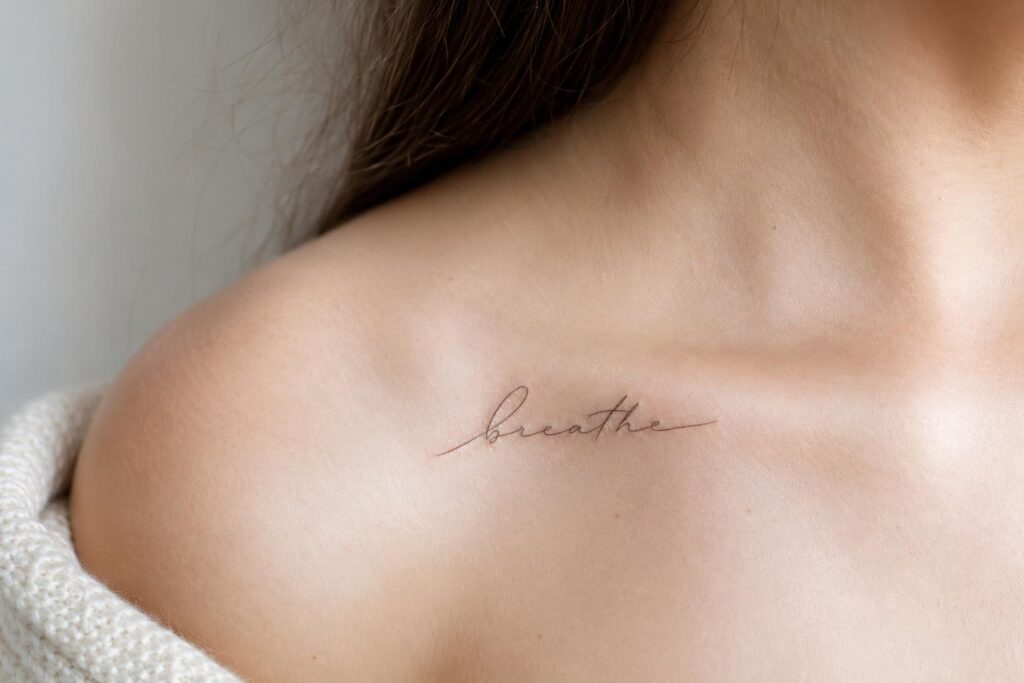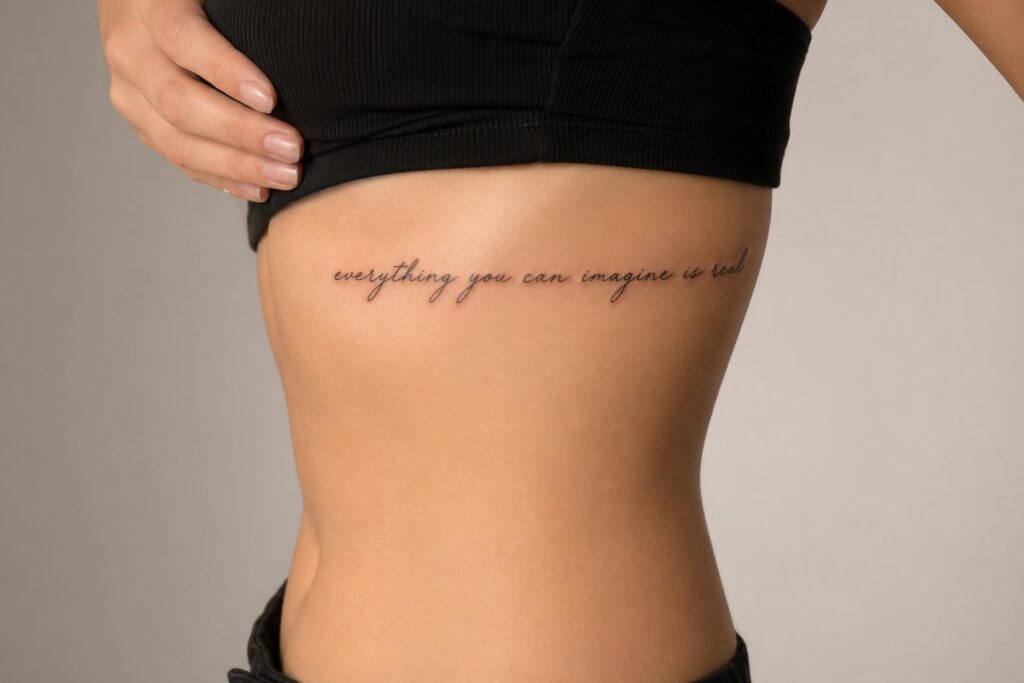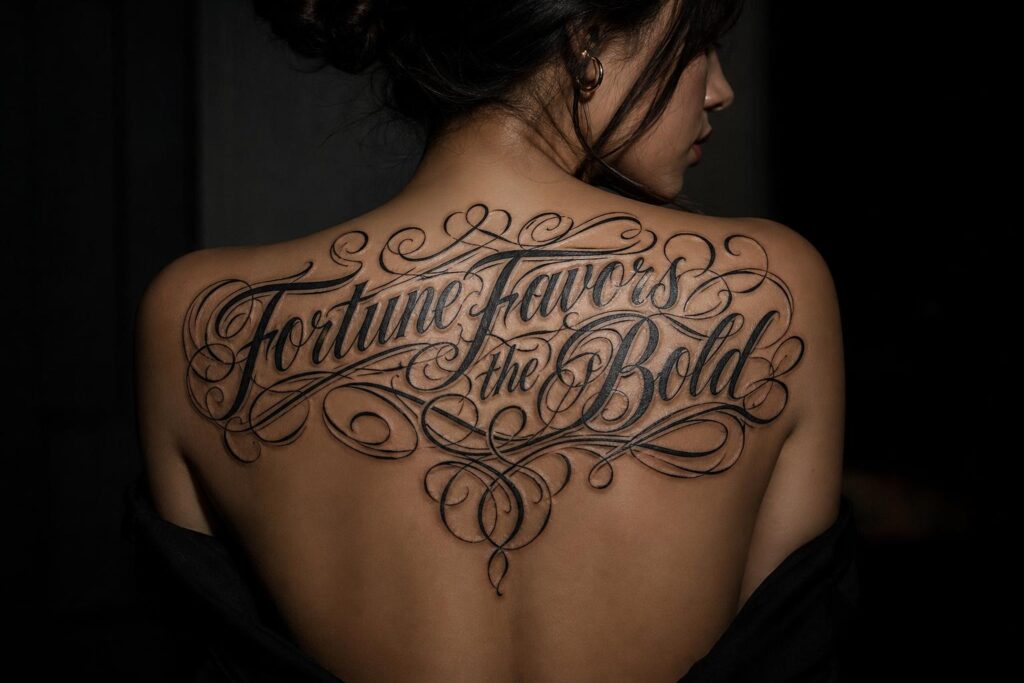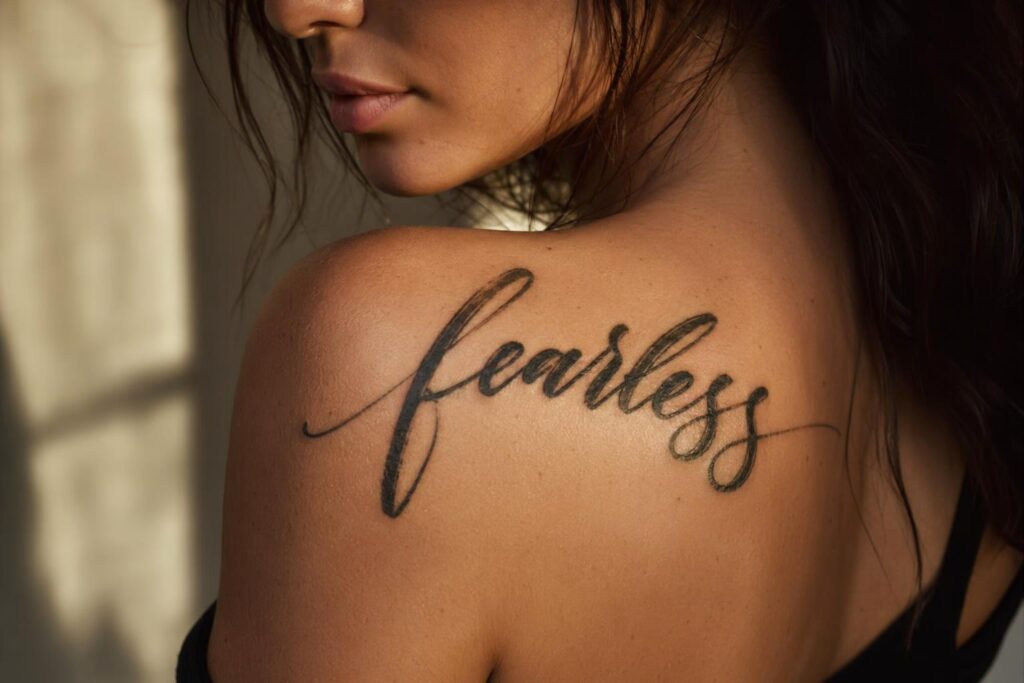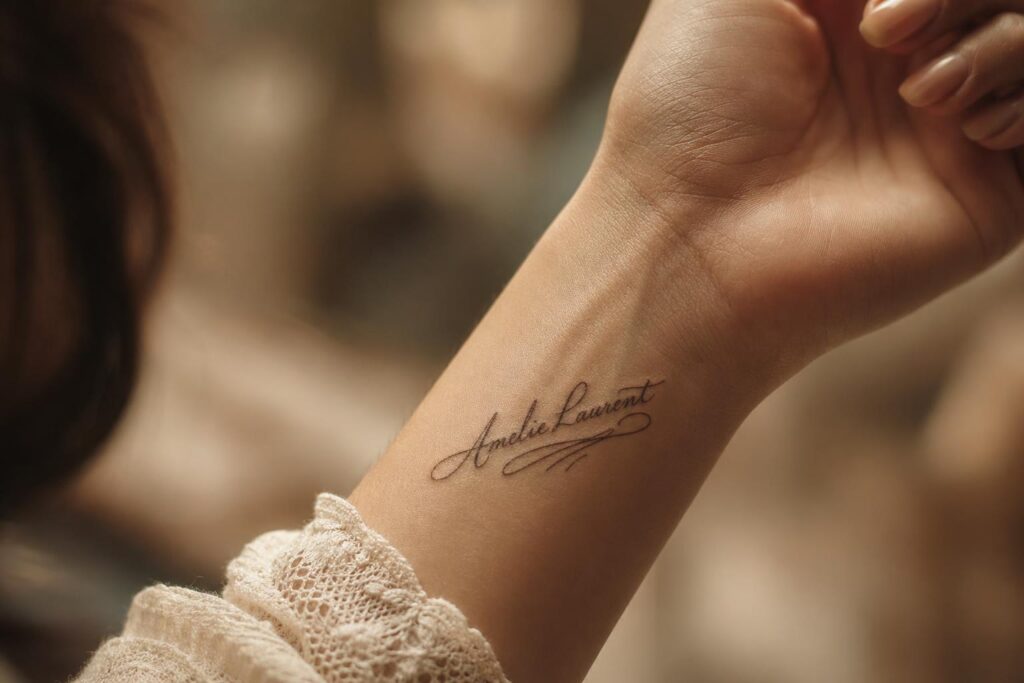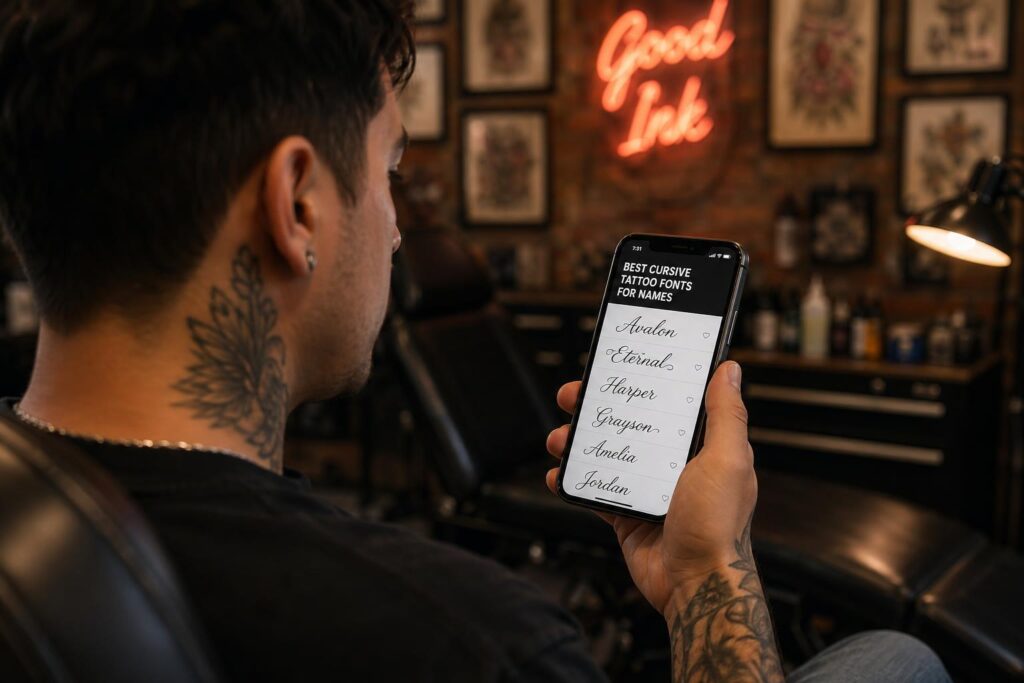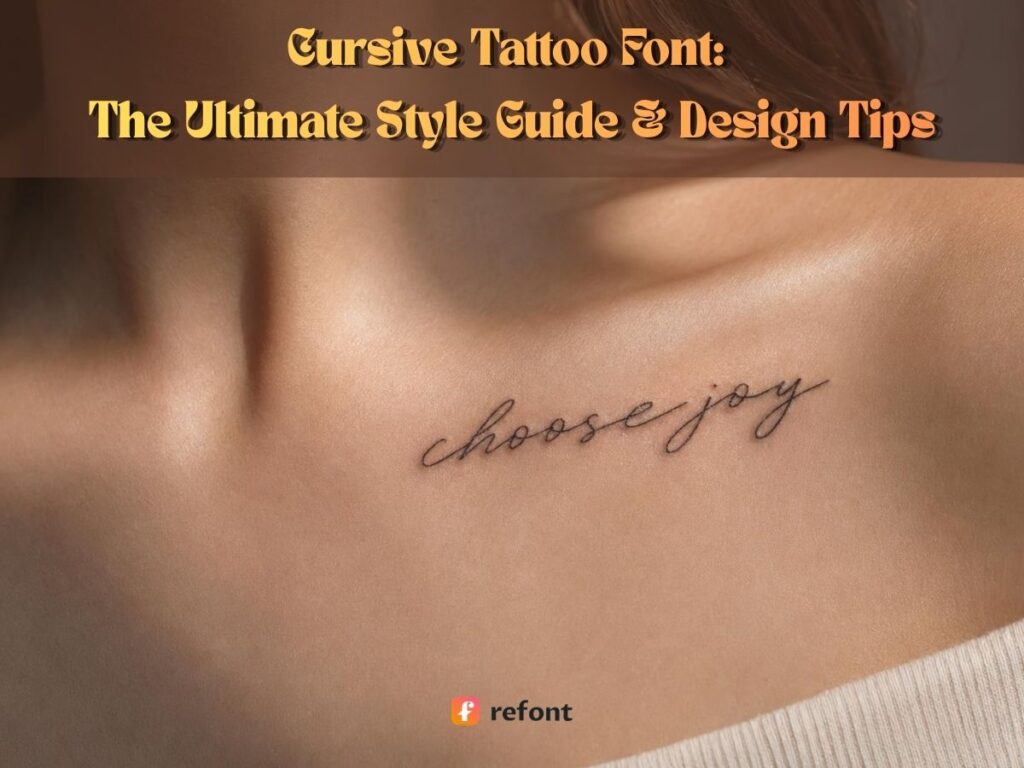
Introduction: Why Your Cursive Tattoo Font Choice Lasts a Lifetime
The Permanent Decision Behind a Single Impulsive Font Click
Let’s be real: we live in an era of instant gratification. You see a celebrity with a delicate word on their ribcage, you pull up Google Images, and within five seconds, you’ve picked a cursive tattoo font that looks "good enough." But here is the cold, hard truth—a tattoo is for life, while that impulsive font choice often lasts about as long as a bad TikTok trend. Imagine sitting in that hydraulic chair, the hum of the needle buzzing in your ear, and you’re showing the artist a blurry screenshot of a font you found on page one of a random search. Is that really the legacy you want to wear on your skin? Choosing a cursive tattoo font isn't just about picking a style; it's about committing to a visual identity that evolves with you. If you don't take the time to find the best cursive tattoo fonts for names or quotes, you might end up with a permanent reminder of a momentary lapse in judgment.
The Timeless Appeal of Cursive — Why It Never Goes Out of Style
Why are we so obsessed with cursive? From the handwritten love notes of the Victorian era to the bold script across a sailor’s chest, the cursive tattoo font has maintained its throne in ink culture for centuries. Unlike blocky, rigid fonts that feel like they were typed on a dusty typewriter, cursive communicates raw emotion. It has a soul. Especially when looking for fine line cursive tattoo fonts for women, the goal is often to capture a sense of grace and fluidity. Cursive flows with the natural contours of the human body, turning a simple name into a piece of kinetic art. It’s the difference between a cold digital print and a warm, hand-signed letter. This is why people searching for the best cursive tattoo fonts for names always gravitate toward script—it feels personal, intimate, and deeply human.
The Real Problem — Beauty vs. Skin Reality
Here is where the "Pinterest dream" meets the "biological nightmare." Many gorgeous cursive tattoo font designs look stunning on a white background at 300 DPI, but skin is not paper. Skin is a living, breathing, stretching organ. Over time, ink migrates—it’s a process called "blowout" or simply "aging." Those incredibly intricate fine line cursive tattoo fonts for women that look like delicate spider silk today might look like a dark, illegible smudge in five years. The finer the detail, the faster the bleed. This "readability vs. aesthetics" paradox is the greatest challenge in the industry. If you choose the best cursive tattoo fonts for names without considering how ink expands in the dermis, your child's name might eventually look like a Rorschach test. Understanding the physics of skin is just as important as the art itself.
Enter AI — Personalized + Practical in Seconds
This is where technology saves the day. You don't have to guess whether your cursive tattoo font will survive the test of time. Refont’s AI tattoo font generator is designed to bridge the gap between your wild artistic vision and the practical limitations of tattooing. By using AI, you can experiment with thousands of variations of fine line cursive tattoo fonts for women or test out the best cursive tattoo fonts for names in real-time. It’s not just about picking a pre-made font; it’s about generating a unique piece of lettering that considers spacing, weight, and flow. Within seconds, you can find a design that is both breathtakingly beautiful and "skin-safe," ensuring your ink stays as sharp as your memory.
What Makes a Great Cursive Tattoo Font?
The DNA of Cursive Lettering
To choose the perfect cursive tattoo font, you have to understand its DNA. A great script is built on three pillars: connectivity, elegance, and fluidity. Connectivity means the letters don't just sit next to each other; they dance together, flowing seamlessly from one stroke to the next. Elegance is found in the consistent slant and the graceful arc of the ascenders and descenders. Fluidity is that sense of motion—the feeling that the word was written in one breath. When you compare a cursive tattoo font to something like Gothic or Old English, the difference is clarity vs. character. While Gothic is structured and rigid, cursive is organic. This is especially true for fine line cursive tattoo fonts for women, where the "breathe" of the line is what creates the aesthetic value.
Why AI-Generated Cursive Beats Traditional Font Libraries
Standard font libraries (the ones you find on your computer) are designed for pixels and paper, not for the three-dimensional, curved surface of a human arm. Their letterforms are mathematically perfect, which actually makes them feel emotionally cold. When looking for the best cursive tattoo fonts for names, you want something that feels alive. Refont's AI is trained on actual human calligraphy and handwriting data. This means the cursive tattoo font it generates has natural variations—the slight imperfections and weight shifts that make it look hand-signed. It mimics the pressure of a real pen. For anyone seeking fine line cursive tattoo fonts for women, AI provides a level of customization that static font files simply cannot match. It’s the difference between a mass-produced suit and one that is bespoke.
Cursive Tattoo Font Style Guide: Find Your Match
1. Minimalist Thin Line Cursive
The "minimalist" look is currently the gold standard for fine line cursive tattoo fonts for women. It’s the ultimate choice for placements like the collarbone, the side of the finger, or behind the ear. This style strips the cursive tattoo font down to its bare essentials. There are no thick flourishes or heavy shadows—just a single, continuous hairline that looks like it was etched with a needle of light. It’s elegant, understated, and incredibly sophisticated. However, because these are fine line cursive tattoo fonts for women, you must ensure the spacing is wide enough. When searching for the best cursive tattoo fonts for names in this style, remember: simplicity is the ultimate sophistication, but it requires a master artist to execute without fading.
2. Vintage Signature Style
If you’re looking for the best cursive tattoo fonts for names that carry emotional weight, the vintage signature is your best friend. This style evokes the feeling of a 1920s fountain pen or a copperplate script. It’s perfect for commemorative pieces or memorial tattoos. Each cursive tattoo font in this category features refined loops and a slight rightward lean, giving it a sense of history. It feels like a contract with the past. When using fine line cursive tattoo fonts for women in a signature style, it adds a layer of personal intimacy that feels like you’ve literally signed your skin with the name of a loved one.
3. Ornate Flourish Cursive
For those who believe "more is more," the ornate flourish cursive tattoo font is a masterpiece of drama. This is not for your wrist; this is for the back, the thigh, or a full chest piece. It features exaggerated swashes and decorative loops that interweave between the letters. While it’s one of the best cursive tattoo fonts for names if you want to make a bold statement, it requires a lot of "breathing room." If the flourishes are too tight, the fine line cursive tattoo fonts for women aesthetics will be lost in a sea of ink. It’s theatrical, it’s bold, and it demands attention.
4. Modern Clean Script
Modern clean script is the "tailored suit" of the cursive tattoo font world. It’s sharp, intentional, and balanced. It’s popular for ribcage tattoos or long quotes on the inner bicep. This style avoids the "messiness" sometimes associated with older handwriting styles. If you are looking for fine line cursive tattoo fonts for women that still feel professional and contemporary, this is it. It’s also one of the best cursive tattoo fonts for names because the legibility is extremely high. You won't have people squinting at your arm asking, "Is that an 'A' or an 'O'?"
5. Gothic Blackletter
While Blackletter is technically its own category, it’s often paired with a cursive tattoo font to create visual hierarchy. Imagine a bold, aggressive Gothic word like "LOYALTY" with a delicate fine line cursive tattoo fonts for women subtitle underneath. This contrast between "hard" and "soft" is a staple of modern tattoo design. Using the best cursive tattoo fonts for names in a cursive style alongside a Gothic surname creates a sophisticated, multi-layered look that tells a much richer story than a single font ever could.
6. Brush Script
Brush script is all about energy. It mimics the look of a calligraphy brush—thick downstrokes and thin upstrokes. This cursive tattoo font style is perfect for the shoulder or calf. It feels artisanal and handcrafted. If you are looking for the best cursive tattoo fonts for names that feel powerful and "alive," the brush style captures that variable pressure perfectly. Refont’s AI is particularly good at generating these fine line cursive tattoo fonts for women because it understands how a brush would naturally taper off at the end of a word.
Pro Design Tips for Cursive Tattoo Fonts That Age Beautifully
Tip 1 — Master Kerning: The Space Between Letters
Kerning is the secret sauce of a long-lasting cursive tattoo font. In the world of ink, space is your best friend. Over 10 to 20 years, the ink particles in your skin will naturally spread. If your fine line cursive tattoo fonts for women have letters that are too close, they will eventually touch, turning a beautiful word into a solid black line. When looking for the best cursive tattoo fonts for names, always add about 10-15% more space than you think you need. Using Refont, you can manually adjust the "air" between letters to ensure your cursive tattoo font remains readable even when you’re eighty years old.
Tip 2 — Match Stroke Weight to Body Placement
A cursive tattoo font on your finger will age differently than one on your back. Fingers, hands, and feet are high-friction areas with thin skin; here, fine line cursive tattoo fonts for women need slightly more "beef" to stay visible. On the other hand, the forearm or back is a stable canvas where you can really push the limits of the best cursive tattoo fonts for names with intricate, thin details. Always consider the "terrain" of your body before finalizing your cursive tattoo font design.
Tip 3 — The Power of a Dominant First Letter
One of the most effective tricks for a cursive tattoo font is to make the first letter much larger and more ornate than the rest. This creates a visual anchor. Whether you're choosing fine line cursive tattoo fonts for women or searching for the best cursive tattoo fonts for names, focusing on a strong initial allows the rest of the word to be simpler and more readable. It’s a classic typographic technique that ensures your cursive tattoo font looks intentional and artistic.
Tip 4 — Simulate the Curve of the Body
Human bodies aren't flat planes like a piece of paper. Your skin curves around muscles and bone. When designing your cursive tattoo font, don't just look at it on a flat screen. If you're picking fine line cursive tattoo fonts for women for a wrist, imagine how the text will wrap. Sometimes, a slightly arched or slanted cursive tattoo font looks much more natural than a perfectly horizontal one. This is why testing the best cursive tattoo fonts for names on actual photos of your body (using Refont's PNG export) is a game-changer.
Cursive Tattoo Font Mistakes to Avoid
Mistake 1 — Overly Complex Flourishes in Small Sizes
We’ve all seen it: a cursive tattoo font that looks like a beautiful bird in a large drawing but turns into a tangled mess of wire when shrunk down to fit a wrist. This is the biggest mistake people make with fine line cursive tattoo fonts for women. If the design is too busy, the needle cannot physically create enough space between the lines. When looking for the best cursive tattoo fonts for names, remember that "less is often more" for small-scale tattoos. A clean cursive tattoo font will always look better than a cluttered one.
Mistake 2 — Ignoring Word Length & Visual Balance
A cursive tattoo font that looks great for a short name like "Mia" might look overwhelming for a long name like "Elizabeth." When searching for the best cursive tattoo fonts for names, you have to balance the length. Long words need more horizontal space and thinner strokes to remain elegant. If you apply the same fine line cursive tattoo fonts for women style to words of different lengths, you might get very different results. Always preview your specific word in the cursive tattoo font generator before deciding.
Mistake 3 — Choosing Trends Over Timelessness
Trendy fine line cursive tattoo fonts for women might look cool on Instagram today, but will they look good in 2045? Trends fade; ink doesn't. Instead of following the latest "micro-tattoo" trend, focus on finding a cursive tattoo font that has structural integrity. The best cursive tattoo fonts for names are those that lean into classic calligraphy principles rather than fleeting digital aesthetics. A well-designed cursive tattoo font is timeless.
FAQ: Cursive Tattoo Font Questions Answered
What is the most popular cursive tattoo font style right now?
In 2026, the most requested styles are fine line cursive tattoo fonts for women that feature a "handwritten signature" look. People are moving away from overly stylized computer fonts and toward designs that feel human and organic. When searching for the best cursive tattoo fonts for names, many are choosing minimalist, single-needle styles. However, the most "popular" cursive tattoo font is always the one that is personalized to the individual's story.
How do I know if a cursive font will hold up after tattooing?
Check the "negative space." If you look at your cursive tattoo font and see small, tight loops (like in the letters 'e', 'a', or 'o'), those are the first places that will blur. To ensure your fine line cursive tattoo fonts for women last, choose a design with open loops and generous spacing. The best cursive tattoo fonts for names always prioritize legibility over excessive decoration.
Can I use Refont designs commercially (for a tattoo studio)?
Absolutely. Refont is a powerful tool for professional artists to help their clients find the best cursive tattoo fonts for names quickly. Instead of spending hours sketching variations of a cursive tattoo font, you can generate options in seconds and use the PNG export to create high-quality stencils. It’s an essential tool for anyone specializing in fine line cursive tattoo fonts for women.
Design Your Cursive Tattoo Font with Refont AI
Choosing a cursive tattoo font is a journey of self-expression. Whether it's a quote that saved your life or the best cursive tattoo fonts for names of people you love, your ink deserves to be perfect. Don't settle for "good enough" when you can have "extraordinary." By exploring fine line cursive tattoo fonts for women and utilizing AI technology, you are taking control of your permanent aesthetic.